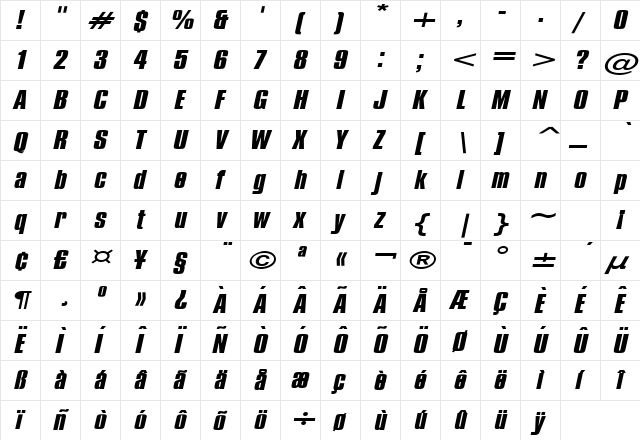
Commador Extended Italic
Design Context for Commador Extended Typeface
Commador Extended offers clean, dependable letterforms without strong stylistic allegiance, making it a practical choice for designers who need flexibility. The dynamic lean of this cut emphasises speed and emphasis in any layout.
Pro Tip: Use Commador Extended for emphasis, pull quotes, and subheadings where its slanted energy can add rhythm to the layout.